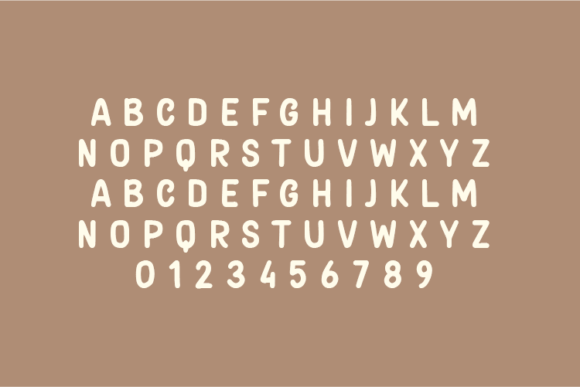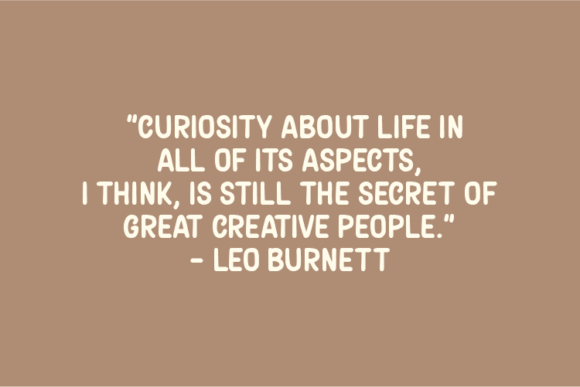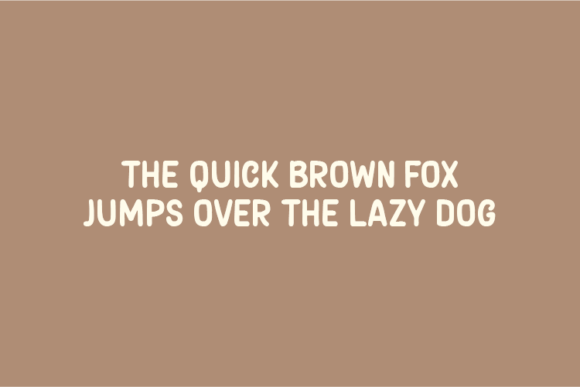
Honey Lemon Font
Honey Lemon is a charming and natural handwritten font celebrated for its authenticity, where not a single node in each character’s indentation has been altered. This distinctive feature renders the font interesting and unique, making Honey Lemon an excellent choice for quotes, notes, tees, and a variety of product designs.
The font’s natural handwritten style imparts a genuine and organic feel, making it an ideal companion for projects aiming to convey sincerity and a touch of nature. Whether utilized in quotes for inspiration, notes to add a personal touch, or on t-shirts and product designs, Honey Lemon brings an unaltered and distinctive quality to your text.
In quotes and inspirational messages, Honey Lemon’s natural handwritten appearance adds warmth and authenticity. The font’s unique design ensures that your words are presented in a way that feels personal and genuine, contributing to a heartfelt expression.
For notes and personal messages, Honey Lemon enhances the sincerity of your communication. Its unaltered indentation design gives the font a handcrafted and individualized look, making your messages feel more intimate and genuine.
On t-shirts and product designs, Honey Lemon’s natural and unique characteristics create a distinctive visual appeal. The font adds an original touch to your designs, making them stand out with an authentic and unaltered charm.
The versatility of Honey Lemon extends to various design applications where a natural and handwritten style is desired. Its uniqueness ensures that your text becomes a focal point, adding an interesting and engaging element to your overall design.
In summary, Honey Lemon is not just a font; it’s a creative tool that brings a natural and unique handwritten style to your projects. Whether used in quotes, notes, tees, or product designs, Honey Lemon adds an authentic touch, making your creations stand out with a genuine and unaltered charm.